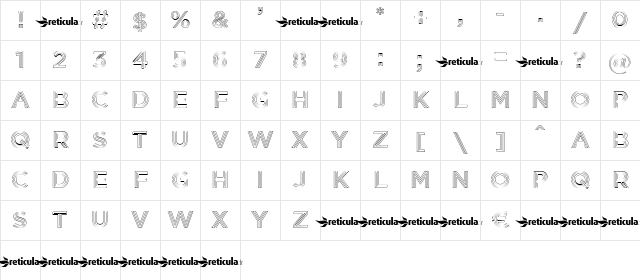
Inception Regular
Foundry: ViNZ
Designer: ViNZ
Design Context for Inception
Inception is a composed and adaptable typeface that performs quietly and consistently across a wide range of design contexts.